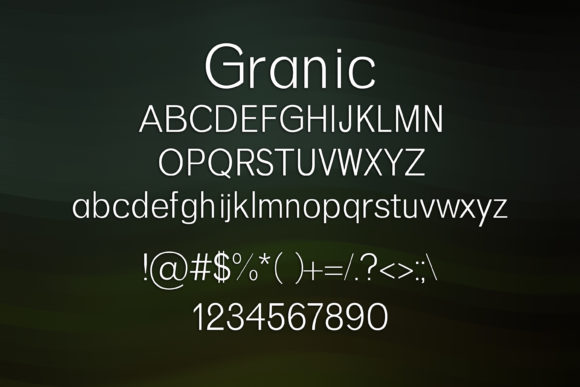
Discover the Timeless Charm of the Granic Font
You know that moment when you’re working on a project, and suddenly, the perfect font pops into your mind? It’s like a spark of creativity that sets everything off in the right direction. For designers, finding that elusive font can be a game-changer. It’s the difference between a good design and a great one. And, trust us, Granic Font is one of those special finds that will elevate your work to the next level.
Granic Font is a sans serif font with a timeless feel that’s as cool as it is smart. Its clean lines, modern aesthetic, and versatility make it a valuable addition to any designer’s toolkit. Whether you’re working on a logo, a website, or a magazine spread, Granic Font is the perfect choice to add a touch of sophistication and style.
Granic Font Key Features
- Font Family: Granic is a sans-serif font family with a modern and clean design.
- Character Set: Supports a wide range of languages, including Latin, Cyrillic, and Greek alphabets, making it suitable for international use.
- Unique Characteristics: Granic features a unique blend of geometric and organic shapes, resulting in a distinctive and modern aesthetic.
- Weight and Style Options: Available in multiple weights (light, regular, bold, and extra bold) and styles (italic and bold italic), providing flexibility for various design applications.
Granic Font Review
Granic Font is a modern sans-serif font that has gained popularity among designers and developers alike. When I first laid eyes on it, I was immediately drawn to its clean and minimalist aesthetic ✨. The font is designed to work well in a variety of contexts, from digital products to print materials.
- Customizable weight and width options ✨: Granic Font offers a range of weights and widths, making it easy to adapt to different design requirements.
- Perfect for digital products ✨: The font is optimized for digital screens and works well in a variety of digital products, including mobile apps, websites, and video games.
- Legibility and readability ✨: Granic Font is designed to be highly legible and readable, making it perfect for long blocks of text.
However, I did encounter some limitations ⚠️. While the font is highly customizable, it can be a bit difficult to work with for those who are not familiar with font design.
Overall, I would give Granic Font 4 out of 5 stars. While it has its limitations, it is a versatile and modern font that is perfect for a wide range of design projects. With a bit of practice and patience, designers can unlock its full potential and create stunning designs that showcase the font’s unique qualities.
Tips for Getting the Most Out of Granic Font
Here are some tips for getting the most out of Granic Font:
- Use Granic Font in combination with other elegant fonts for a professional look.
- Use Granic Font for headings and titles to create a clear hierarchy of information.
Common Use Cases for Granic Font
Granic Font is suitable for a variety of design projects, including:
- Choose a soft, pastel color scheme to complement the font’s natural feel.
- Pair the font with watercolor-style illustrations of flowers and leaves to create a whimsical atmosphere.
- Use the font for headings and subheadings, and a clean sans-serif font for body text to maintain readability.
- Use a subtle texture or pattern in the background to give the invitation a organic feel.
- Embellish the design with hand-drawn or watercolor-style elements to add a personal touch.
- Choose a bold, contrasting color to make the font stand out against a simple background.
- Pair the font with a simple, geometric shape or a clean line to create a modern feel.
Exploring Creative Projects with Granic Font
The Granic Font is perfect for creating an inviting and playful atmosphere in a garden-themed invitation. Its unique, organic feel adds a touch of elegance and sophistication to any design.
Project 2: Minimalist Quote Art
The Granic Font’s clean lines and modern feel make it an excellent choice for minimalist quote art. Its simplicity allows the focus to be on the quote itself.